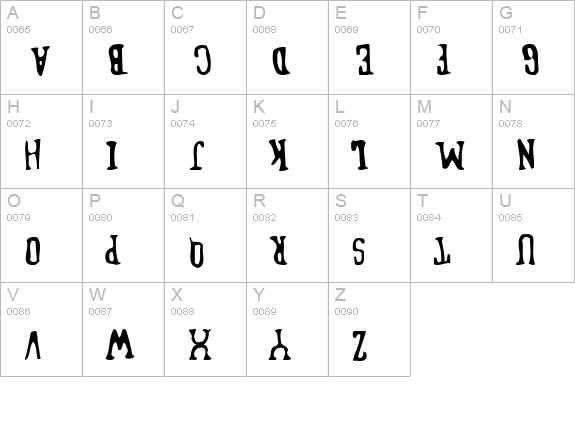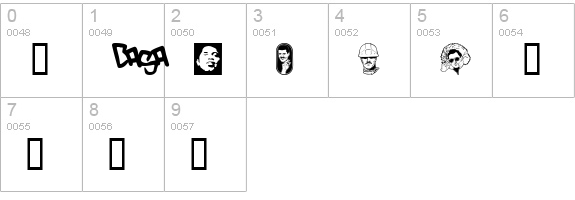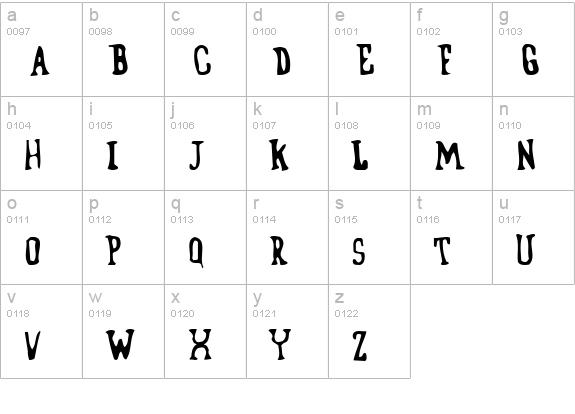
Blufunken (side A) Font Details
Blufunken (side A) font is a captivating and modern typeface that exudes a sense of sophistication and creativity. Its sleek lines and unique design make it suitable for a wide range of projects, from branding to editorial design. The font's elegant curves and sharp angles create a visual impact that is both striking and memorable. What sets Blufunken (side A) font apart is not only its aesthetic appeal but also its versatility. Whether used for headlines, body text, or graphic elements, this font is sure to make a statement. Its bold presence commands attention while still maintaining a sense of balance and harmony. One of the best things about Blufunken (side A) font is that it is completely free to download at FontsMarket.com. This means that you can access this stunning typeface without any cost, making it an excellent choice for designers on a budget or anyone looking to add a touch of elegance to their projects without breaking the bank. Don't miss out on the opportunity to elevate your design work with the stylish and contemporary Blufunken (side A) font.